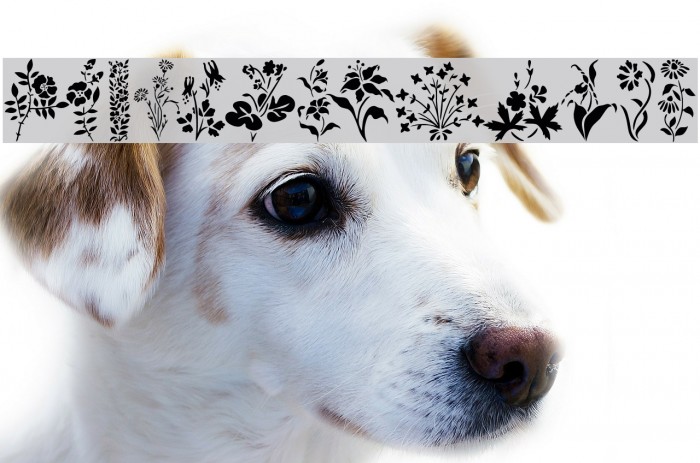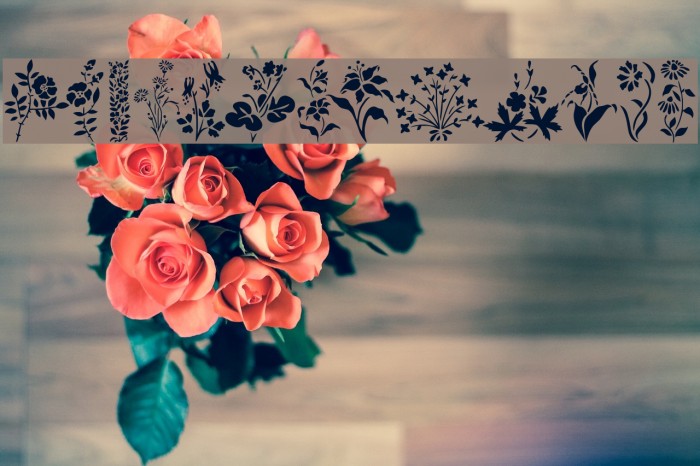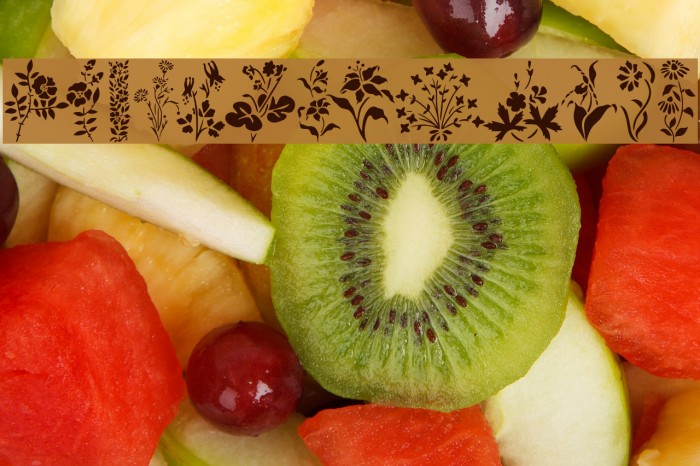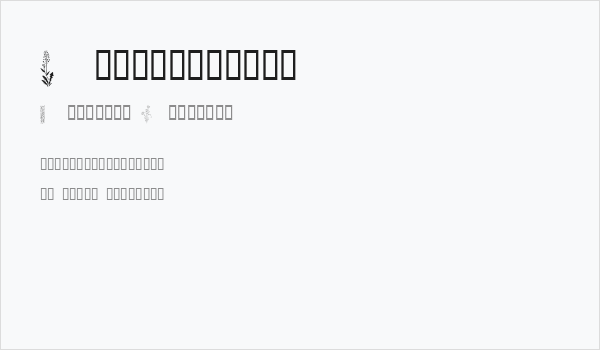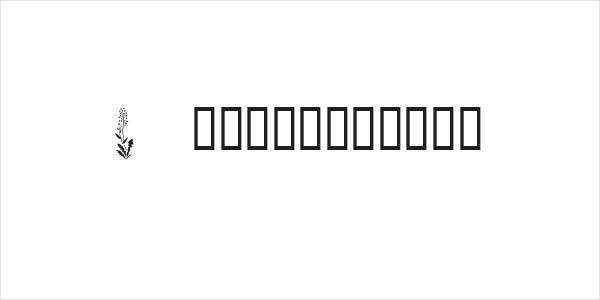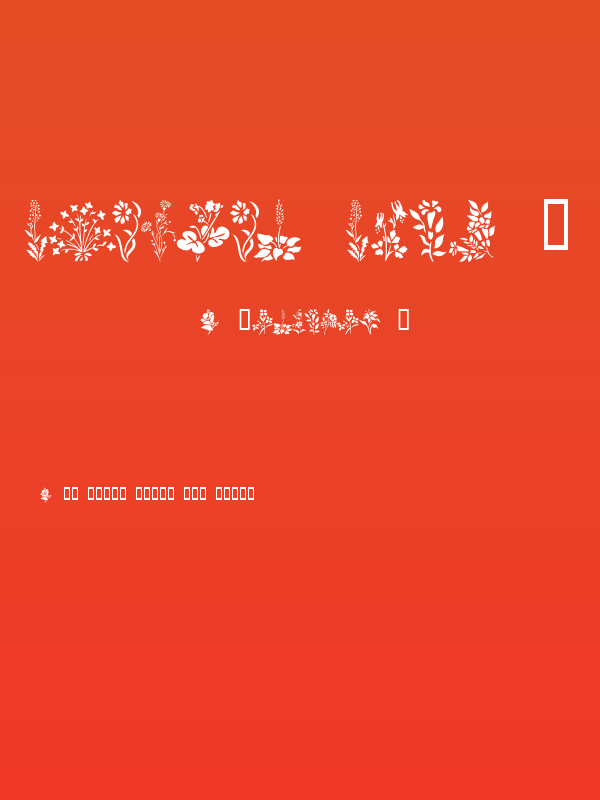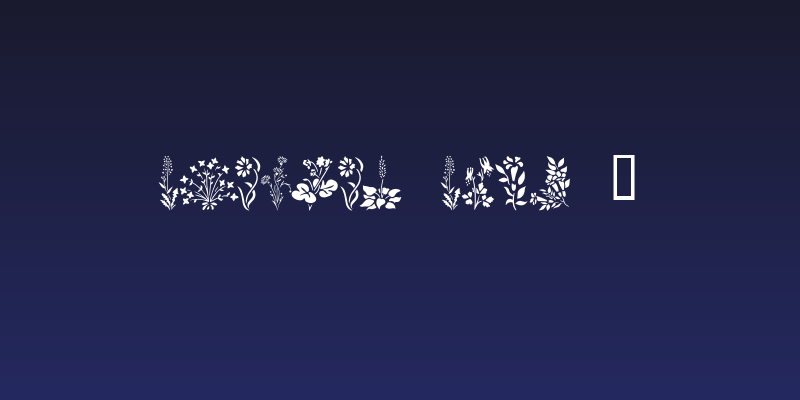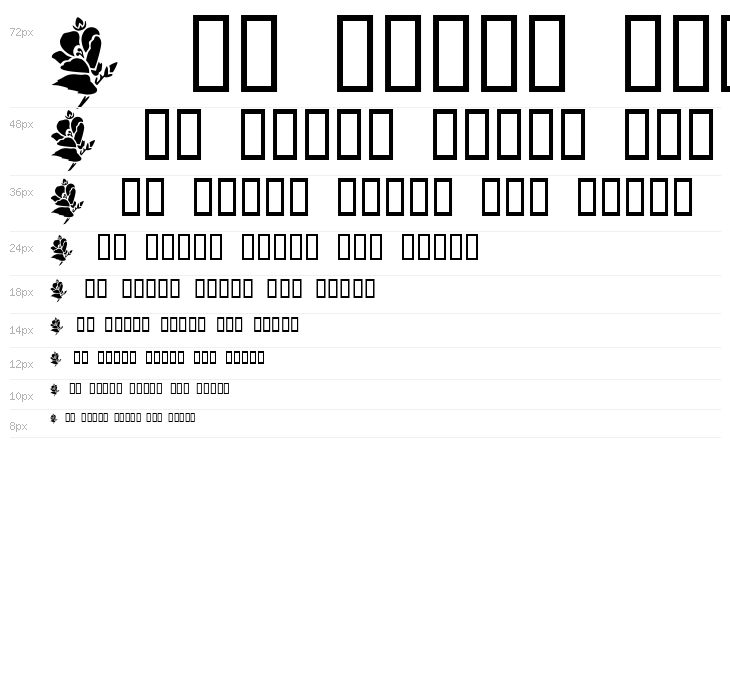
Wildflowers1 Font
Wildflowers1 Description
A decorative dingbat font featuring a variety of wildflower silhouettes and botanical illustrations, each glyph representing a different floral or plant motif in solid black, with no traditional alphanumeric characters present.
| Overall Style | Decorative, Botanical, Nature-inspired |
| Use Case | Decorative elements, Icons, Borders, Themed graphics |
| Proposed Projects | Nature-themed invitations, botanical branding, eco-friendly packaging, scrapbooking, decorative borders, and garden-related graphics. |